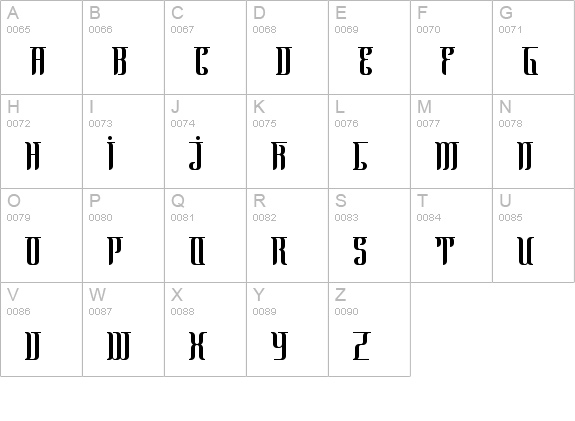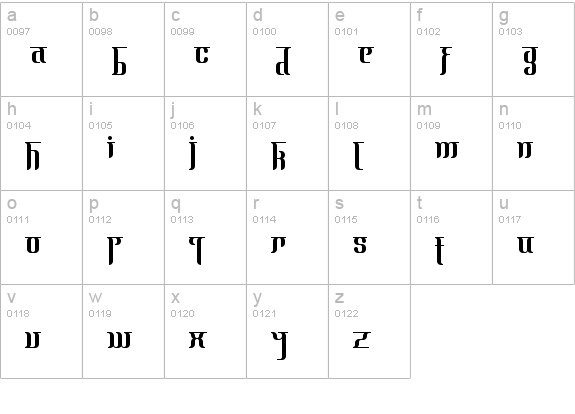
Mata Hari Exotique Font Details
Introducing the mesmerizing beauty of Mata Hari Exotique font - a true embodiment of elegance, allure, and mystique. This exquisite typeface effortlessly captures the essence of Mata Hari, the legendary femme fatale who captivated the imagination of many with her enigmatic charm. Mata Hari Exotique font boasts an enchanting fusion of delicate curves, intricate details, and a hint of exoticism. Its graceful letterforms dance across the page, evoking a sense of intrigue and fascination. Each character is meticulously crafted, ensuring a harmonious balance between sophistication and playfulness. This font offers a versatility that allows it to effortlessly adapt to a wide range of design projects. From luxurious branding and editorial layouts to captivating packaging and event invitations, Mata Hari Exotique font adds a touch of refinement and allure to any creative endeavor. And the best part? Mata Hari Exotique font is freely available to download at FontsMarket.com. Yes, you read that right - this stunning typeface can be yours without any cost. With just a few clicks, you can enhance your designs with the timeless elegance and captivating aura of Mata Hari Exotique font. So why wait? Unleash your creativity and let Mata Hari Exotique font transport your designs to a world of sophistication and intrigue. Download it now, exclusively at FontsMarket.com, and experience the bewitching power of this extraordinary typeface.